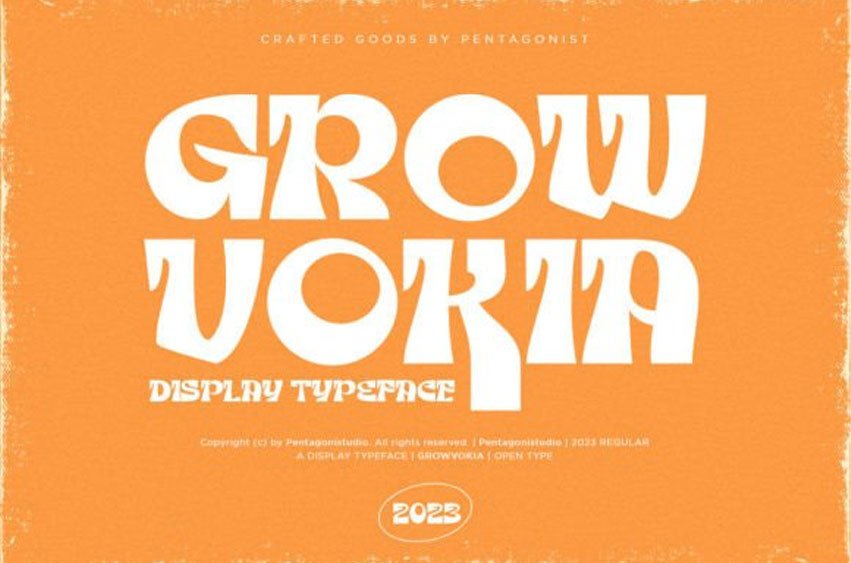
Growvokia Font: Make a bold statement with this unique and eye-catching display font. Its intentionally unbalanced design gives it a distinctive look that is perfect for creating attention-grabbing headlines, posters, and graphics.
Growvokia adds a touch of individuality to your designs. This font is PUA-encoded, which means you can access all glyphs and swashes effortlessly.